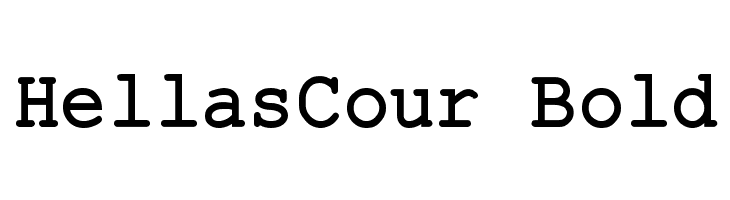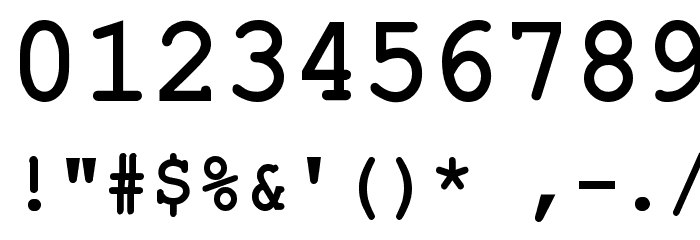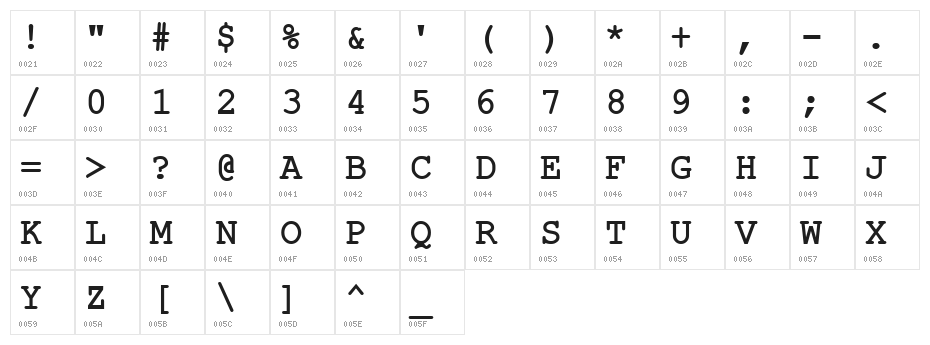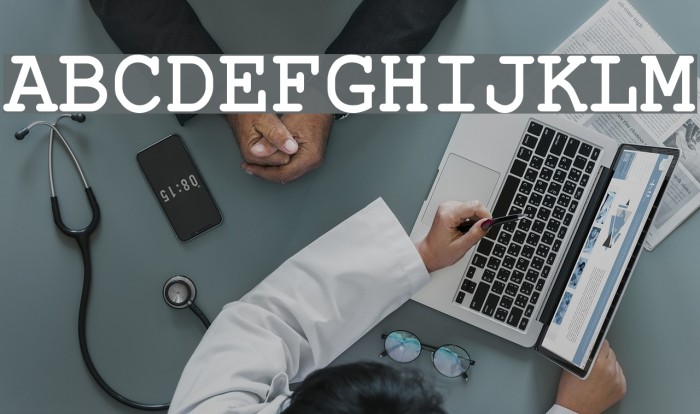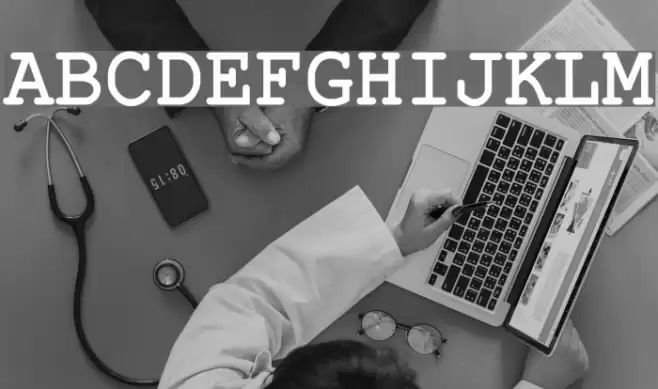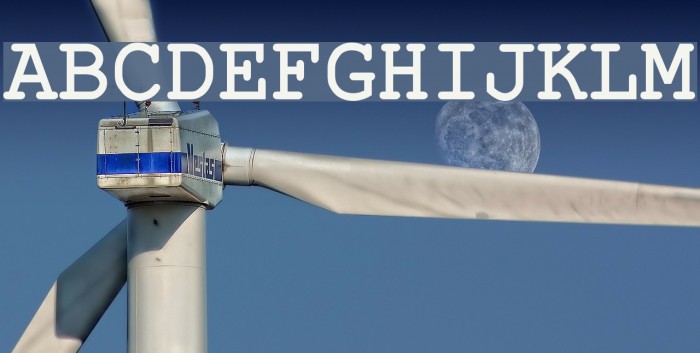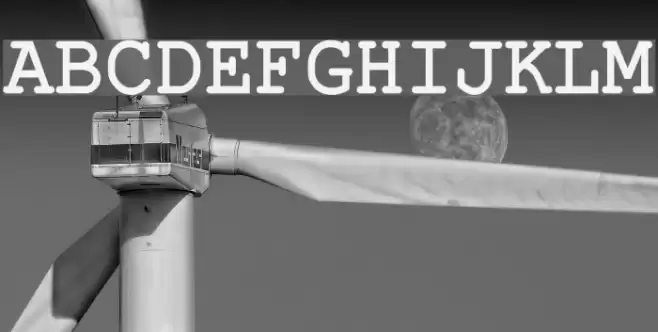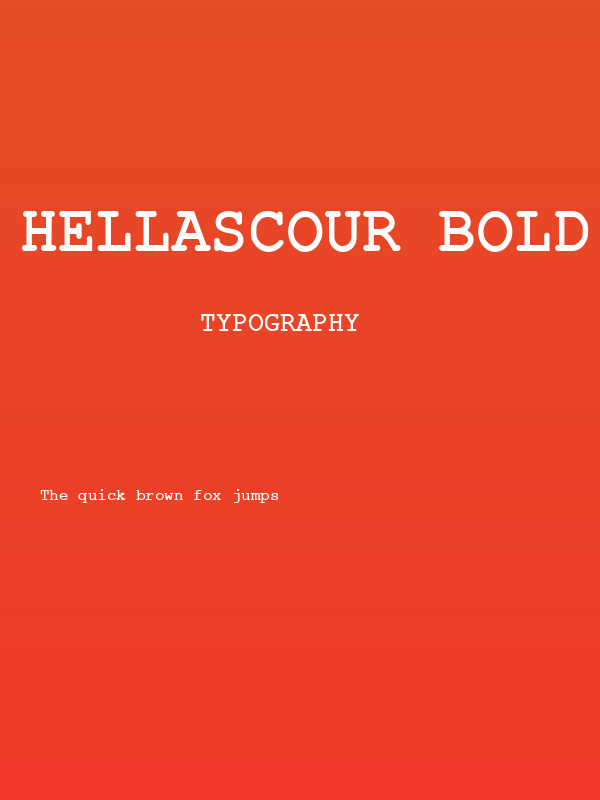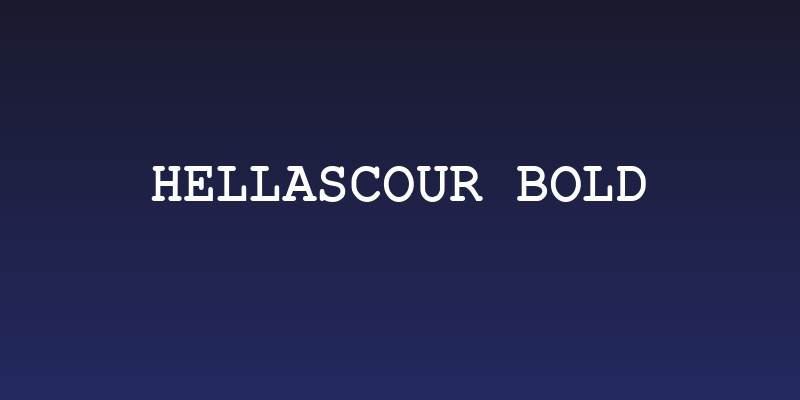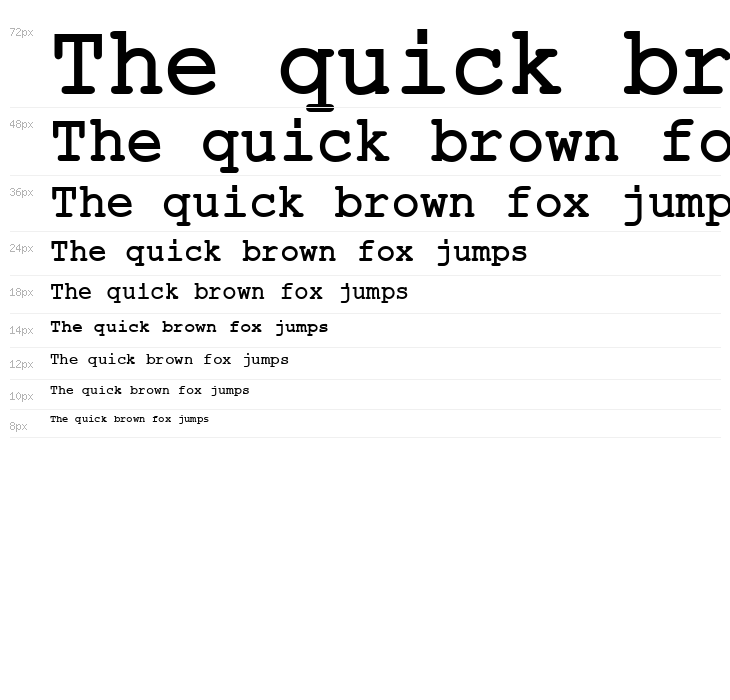
HellasCour Bold Font
HellasCour Bold Description
This font exhibits a classic monospaced style with a bold weight, characterized by consistent stroke widths and a uniform appearance across all characters. The serifs are pronounced, giving it a traditional typewriter aesthetic. Each letter and number is evenly spaced, making it ideal for coding and tabular data where alignment is crucial. The uppercase and lowercase letters maintain a clear distinction, while the numerals are straightforward and easily legible. Special characters are well-defined, enhancing the font's utility in various contexts.
| Use Case | Coding, Technical documents, Retro designs |
| Proposed Projects | Ideal for coding environments, technical documents, retro-themed designs, and any project requiring precise alignment. |